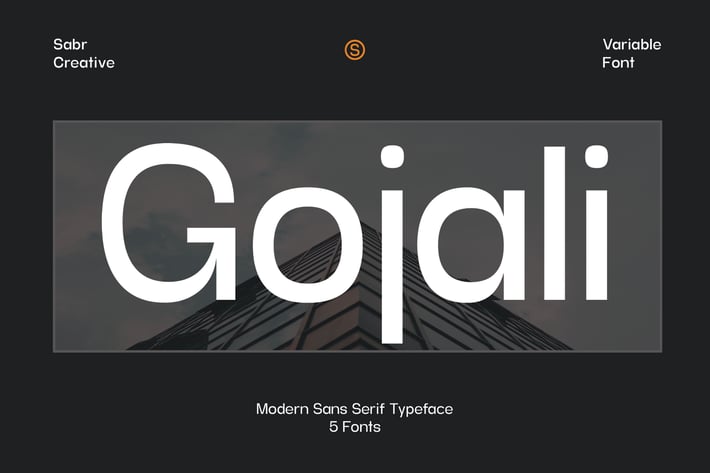
Gojali - Variable Font
Gojali is a modern geometric grotesk sans serif variable font built for branding, logo design, editorial layouts, and digital interfaces. With a clean humanist structure and a variable weight axis spanning 200 to 900, Gojali adapts effortlessly from elegant light headlines to commanding bold wordmarks.
- Variable font with weight axis from 200 (ExtraLight) to 900 (Black)
- 5 static font styles included
- Geometric grotesk construction with humanist character details
- Uppercase & lowercase with extensive character set
- Full multilingual support Western, Central, and Eastern European languages
- Ligatures (fi, fl) and OpenType features supported